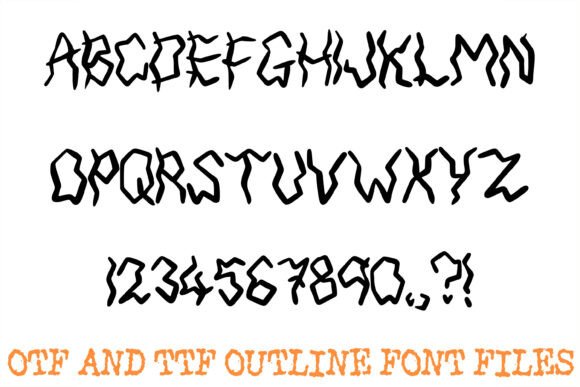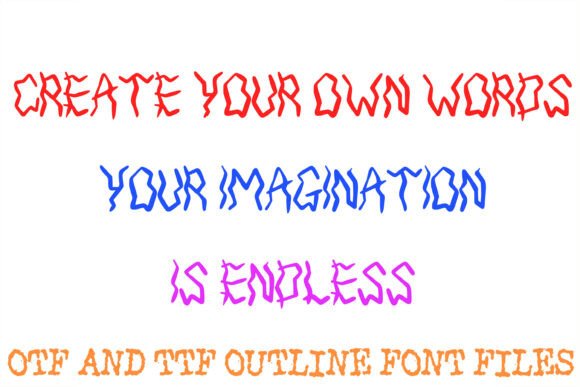
Introduction to Jagged Wiggle Font
You know that moment when you’re working on a creative project and the perfect font just slips away from you? The one that captures the essence of your idea, elevates your design, and makes it stand out from the crowd? That’s exactly what the Jagged Wiggle Font does. This electrifying display typeface is a game-changer for designers looking to add a touch of raw energy to their work.
Whether you’re designing a punk concert poster, a comic book title, or a streetwear graphic, the Jagged Wiggle Font is a high-quality design resource that’s sure to deliver. With its erratic strokes and unpredictable lines, this font is a free download that’s perfect for adding a rebellious touch to your designs. And with its transparent background, you can easily integrate it into your creative project without any hassle.
So, what makes the Jagged Wiggle Font so valuable for designers? For starters, it’s a high-vibration font that captures a sense of raw motion, perfect for conveying a sense of excitement and energy. Its unpredictable lines and sharp zig-zags make it a premier choice for designers looking to disrupt traditional layouts and create a truly unique aesthetic.
Key Features of Jagged Wiggle Font
- Unique, high-quality design with a distinctive jagged and wavy pattern, ideal for creative projects requiring a bold and eye-catching look.
- Perfect for use in graphic design, digital art, and other creative projects where a bold and dynamic visual element is required.
Honest Review: Jagged Wiggle Font
As a designer, I’m always on the lookout for high-quality design resources that can elevate my creative projects. The Jagged Wiggle Font caught my eye with its unique and playful style.
- ✨ Unique style: The Jagged Wiggle Font has a quirky, hand-drawn feel that’s perfect for adding some personality to your designs.
- ⚠️ Limited character set: The Jagged Wiggle Font only includes a limited character set, which may not be suitable for longer blocks of text.
- ⚠️ No bold or italic styles: If you need to emphasize certain words or phrases, you’ll need to rely on other fonts or creative workarounds.
Overall, the Jagged Wiggle Font is a great addition to any designer’s toolkit, especially for creative projects that require a playful, hand-drawn feel. While it may have some limitations, its unique style and high-quality design make it a worthwhile download.
The Jagged Wiggle Font is perfect for use in creative projects such as:
- Invitations and event materials
- Brand logos and marketing materials
- Editorials and publications Alternatives to Jagged Wiggle Font